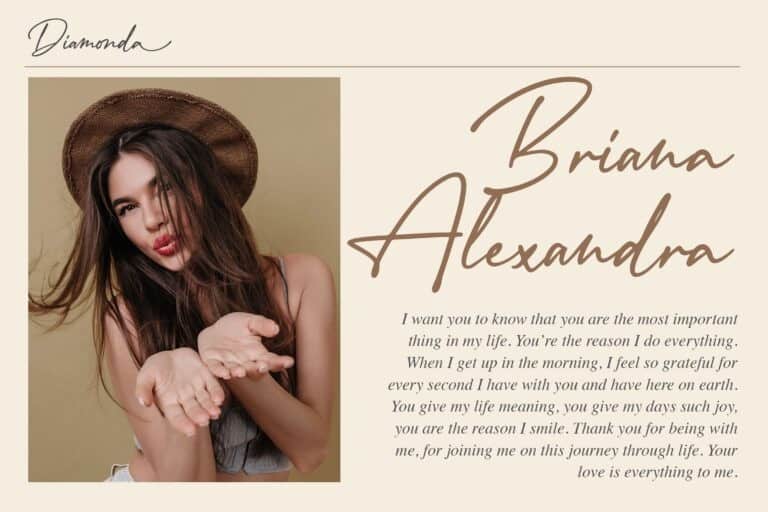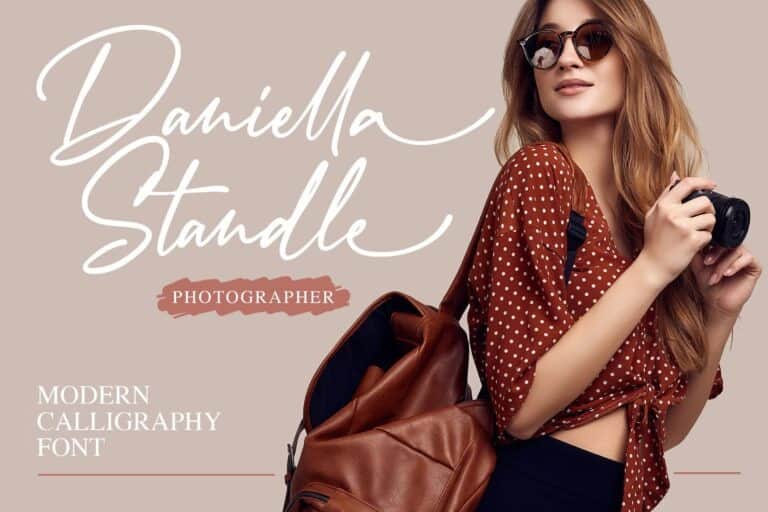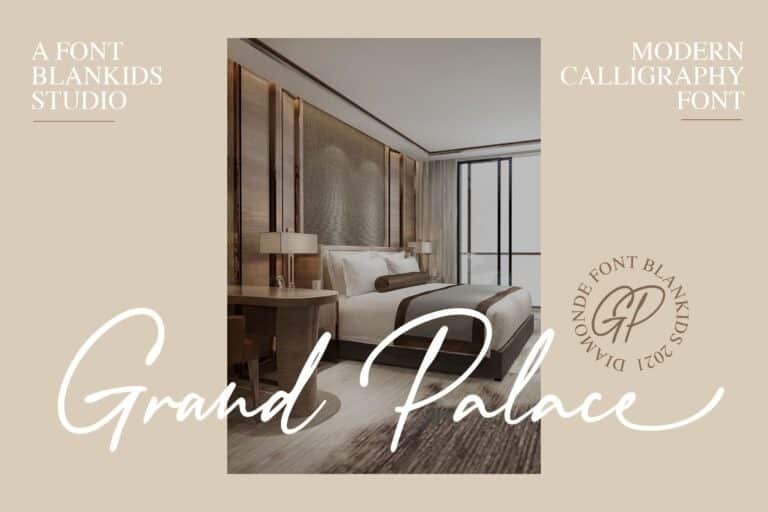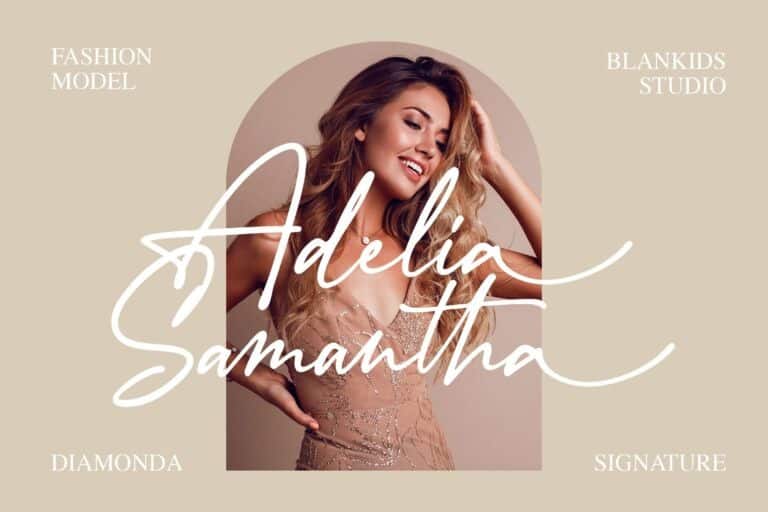
Diamonda Script Font
Diamonda Script Font is a stylish feminine typeface. It includes amazing swashes which will add a feminine touch to your designs. Diamonda inspired by signature style this font is a fun theme very good for display, tshirt design, craft, quote sign, logotype and etc.